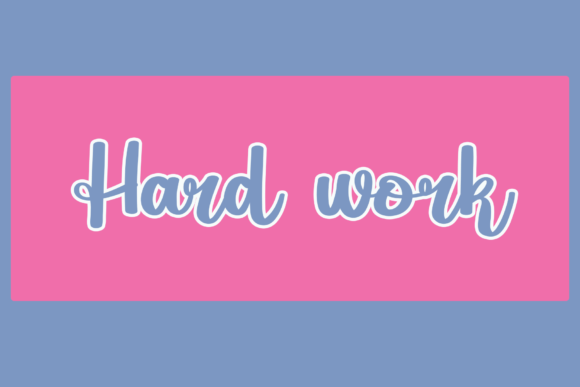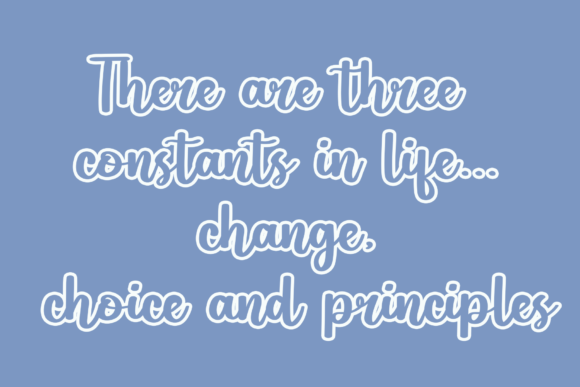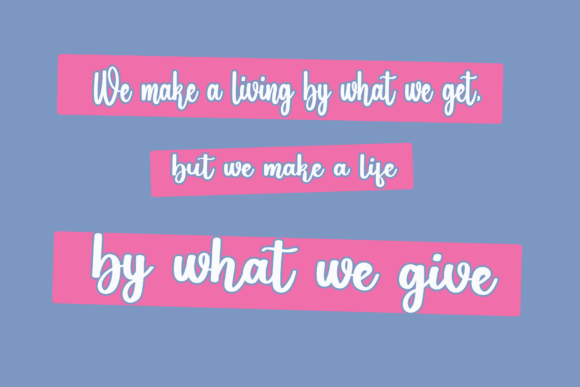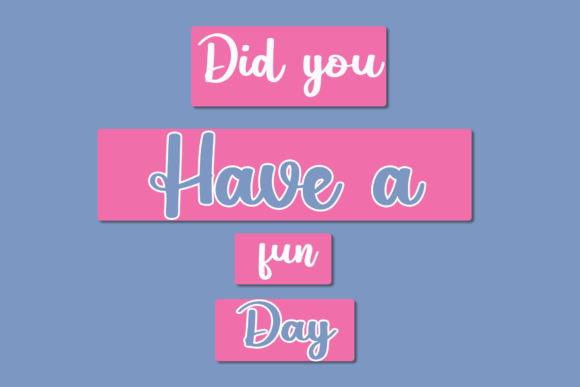
Introducing Creative Homework Font: Elevate Your Designs with Elegance
In the world of design, fonts play a crucial role in conveying messages and setting the tone for a project. For designers and crafters looking to add a touch of sophistication and personality to their work, the Creative Homework font is an excellent choice. This superb handwritten font is designed to make your work stand out with its elegant and curvy lines, perfect for a variety of applications.
What Makes Creative Homework Font Stand Out?
Creative Homework font boasts a unique, handwritten style that is both elegant and approachable. Its curvy lines and fluid connections between letters give it a natural, effortless feel that can add a personal touch to any project. Whether you’re working on product packaging, branding projects, magazine covers, or social media content, this font can help you create a distinctive look that sets you apart from the competition.
The versatility of the Creative Homework font makes it suitable for a wide range of projects. Here are some of the ways you can use this font to elevate your designs:
- Product Packaging: Add a touch of elegance to your product packaging with a font that exudes sophistication and style.
- Branding Projects: Create a consistent brand image with a font that is both unique and memorable.
- Magazine Covers: Grab the attention of readers with a bold, eye-catching font that sets the tone for your publication.
- Social Media: Stand out on social media platforms with a font that adds a personal touch to your posts and stories.
- Weddings: Use the Creative Homework font to create beautiful wedding invitations, decorations, and other stationery that reflects the elegance of the occasion.
Why Choose Creative Homework Font?
There are many fonts available for designers and crafters, but Creative Homework font offers several advantages that make it a top choice:
- Elegant and Curvy Lines: The font’s elegant and curvy lines give it a sophisticated look that is perfect for designs that require a touch of class.
- Handwritten Style: The handwritten style of the font adds a personal touch to your designs, making them more relatable and engaging.
- Versatility: The font’s versatility makes it suitable for a wide range of projects, from product packaging to social media content.
- Easy to Read: Despite its elegant and curvy lines, the Creative Homework font is easy to read, making it perfect for designs that require both style and substance.
In conclusion, the Creative Homework font is a superb handwritten font that can elevate your designs with its elegant and curvy lines. Its versatility, readability, and unique style make it perfect for a wide range of projects, from product packaging to social media content. Whether you’re a designer or crafter, this font is sure to become a valuable addition to your toolkit.